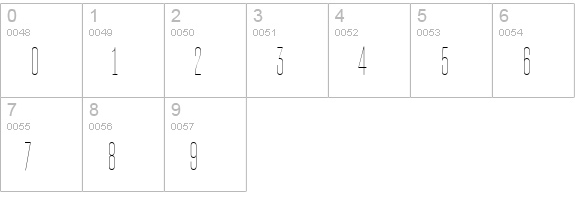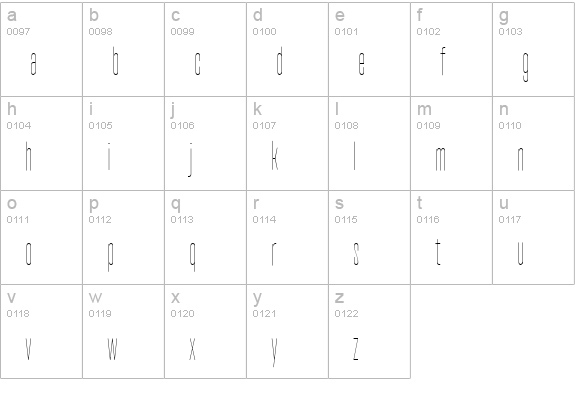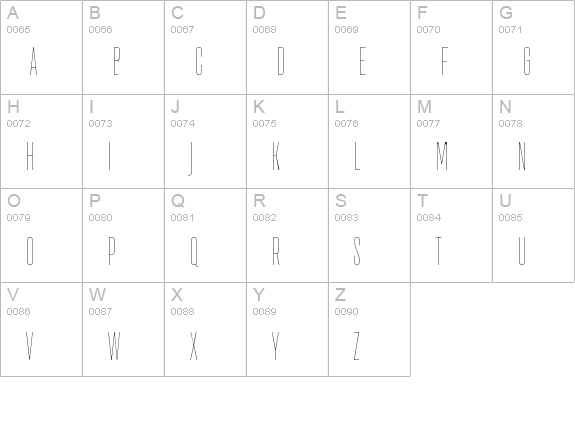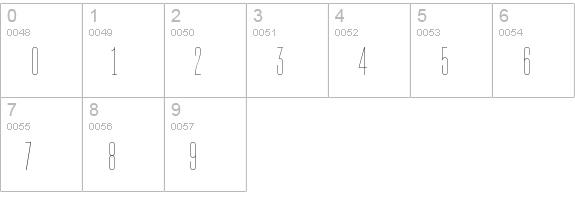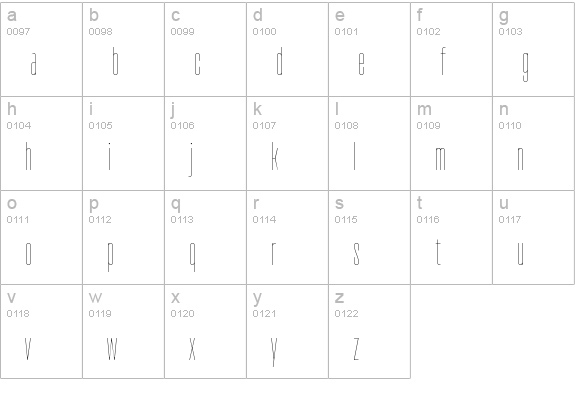
TT Bluescreens Round Thin Font Details
TT Bluescreens Round Thin is a delicate, low-contrast variant in the TT typeface family \xE2\x80\x94 well suited to fashion editorial, minimal branding, and high-contrast display.
TT Bluescreens Round Thin font is a sleek and modern typeface that exudes sophistication and style. With its rounded edges and clean lines, this font is perfect for creating eye-catching designs that demand attention. Its thin strokes add a touch of elegance and refinement to any project, making it ideal for branding, logos, headlines, and more. The best part is that TT Bluescreens Round Thin font is available for free download at FontsMarket.com. This means you can easily access this stunning font and use it in your designs without any cost. Don't miss out on the opportunity to enhance your projects with this versatile and beautiful typeface. Download TT Bluescreens Round Thin font today and take your designs to the next level!